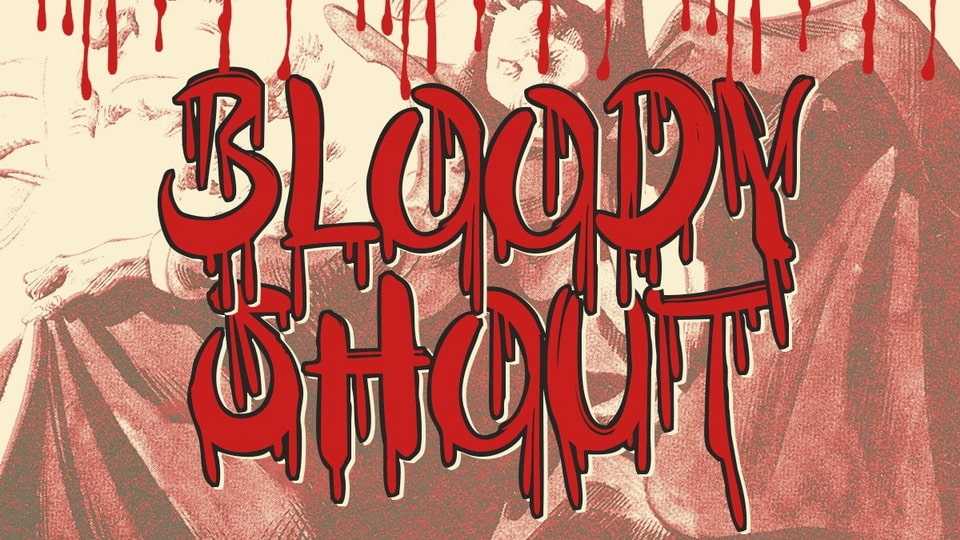
Download Bloody Shout font, a bloody horror display typeface that drips with horror and oozes festive charm, perfect for all your blood-soaked, Halloween-themed designs.